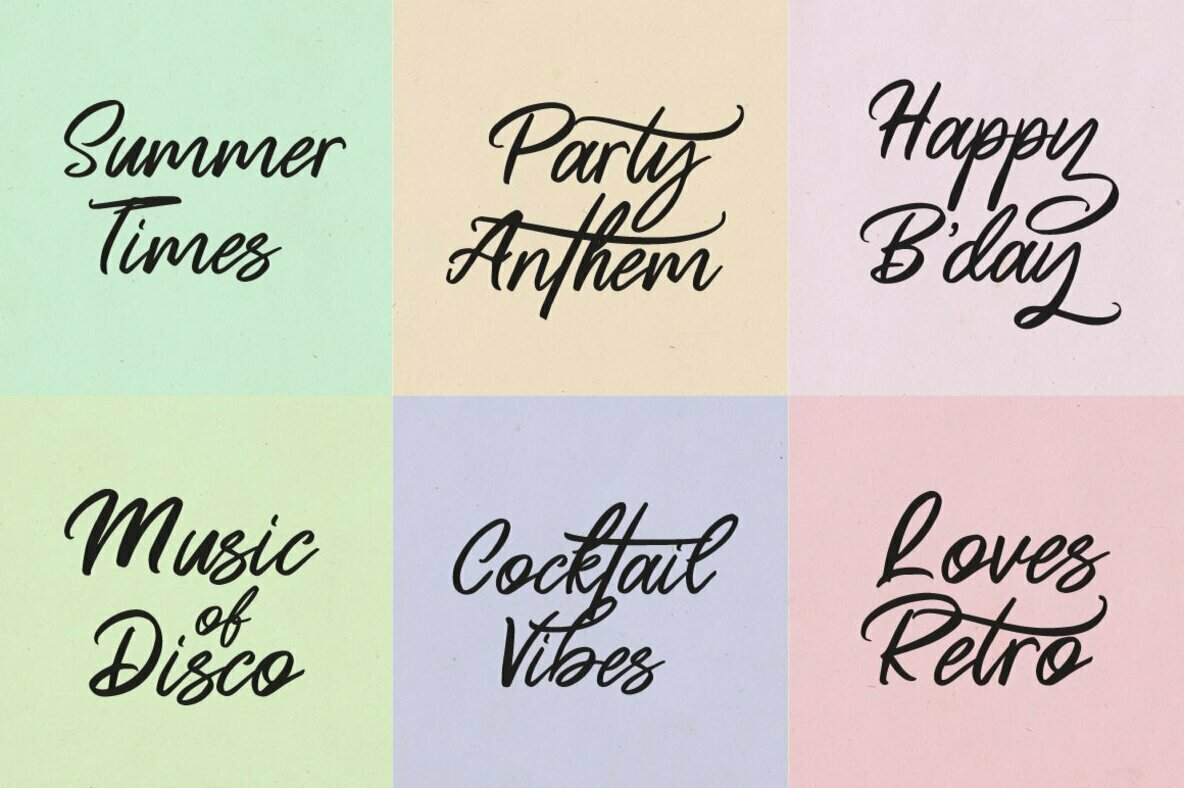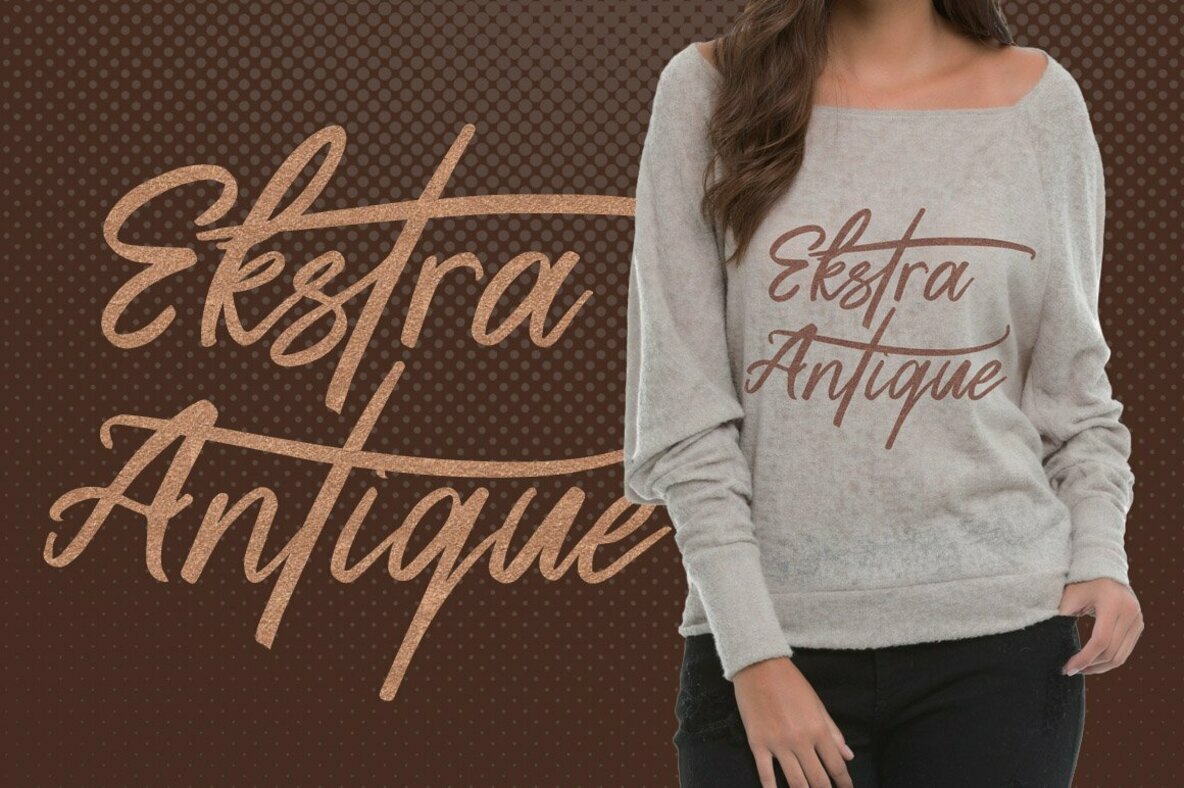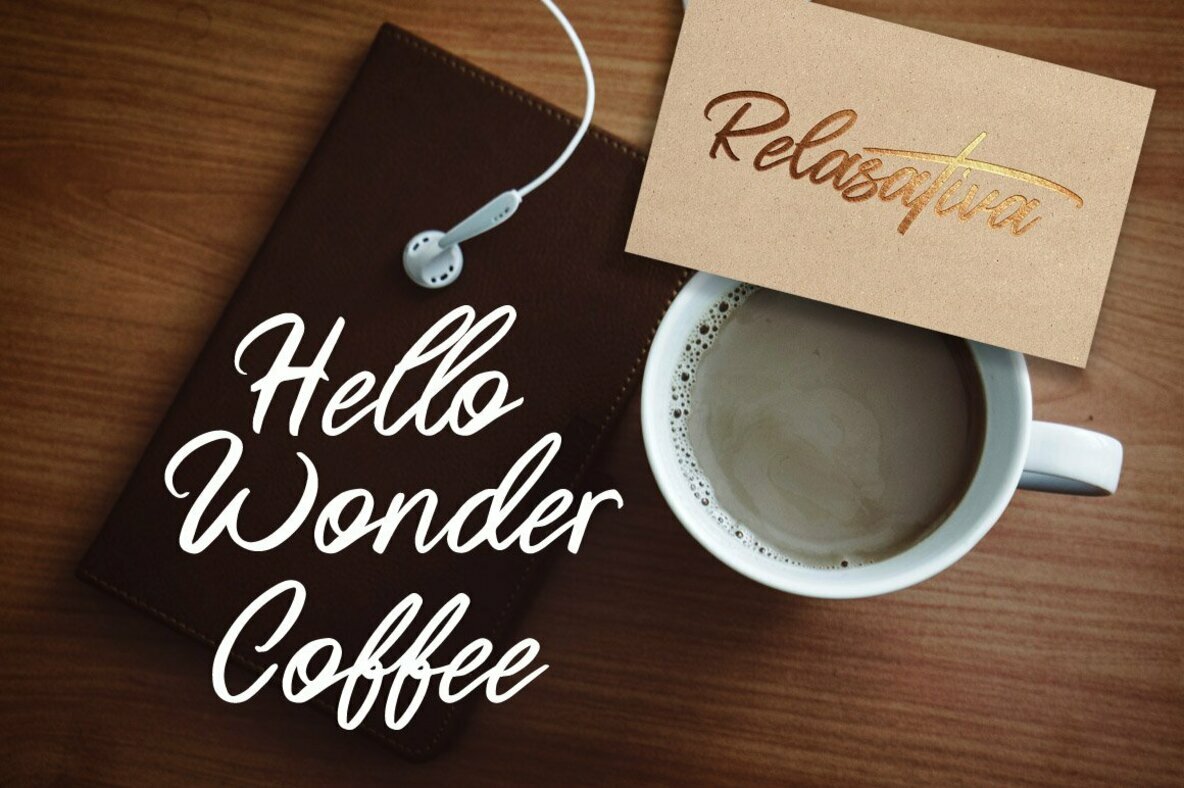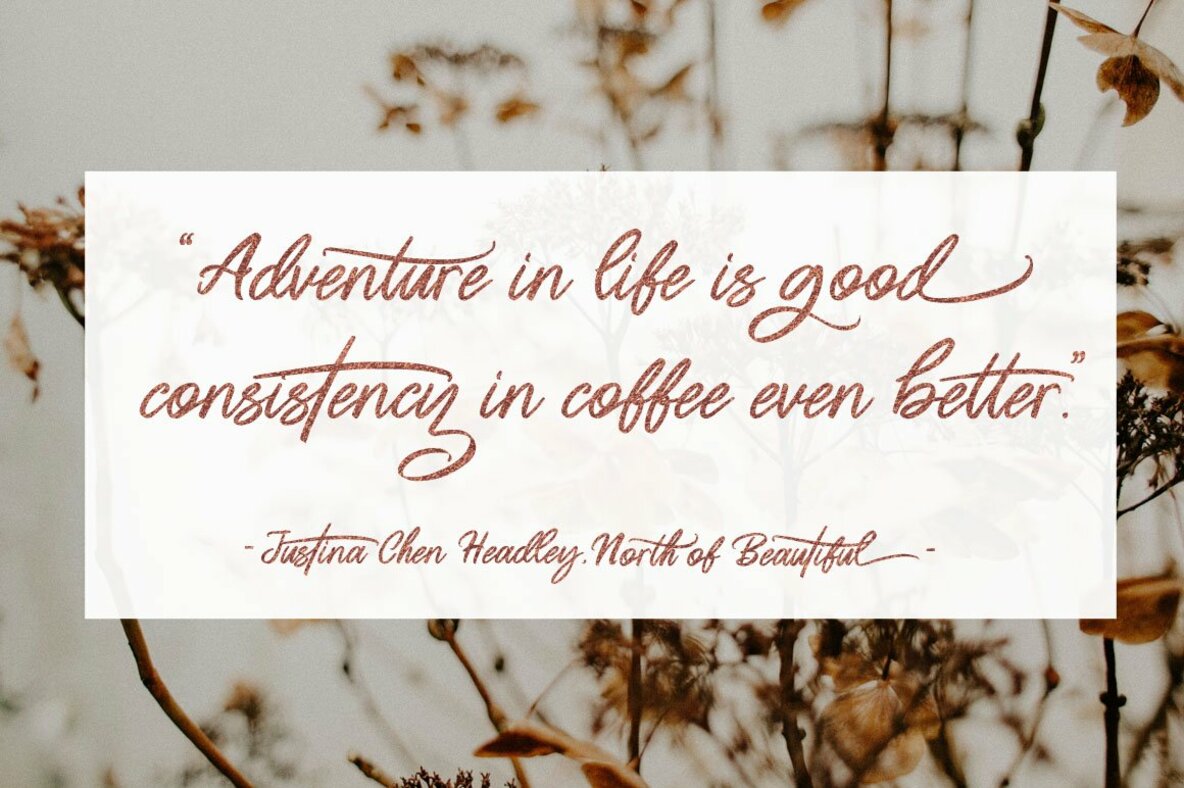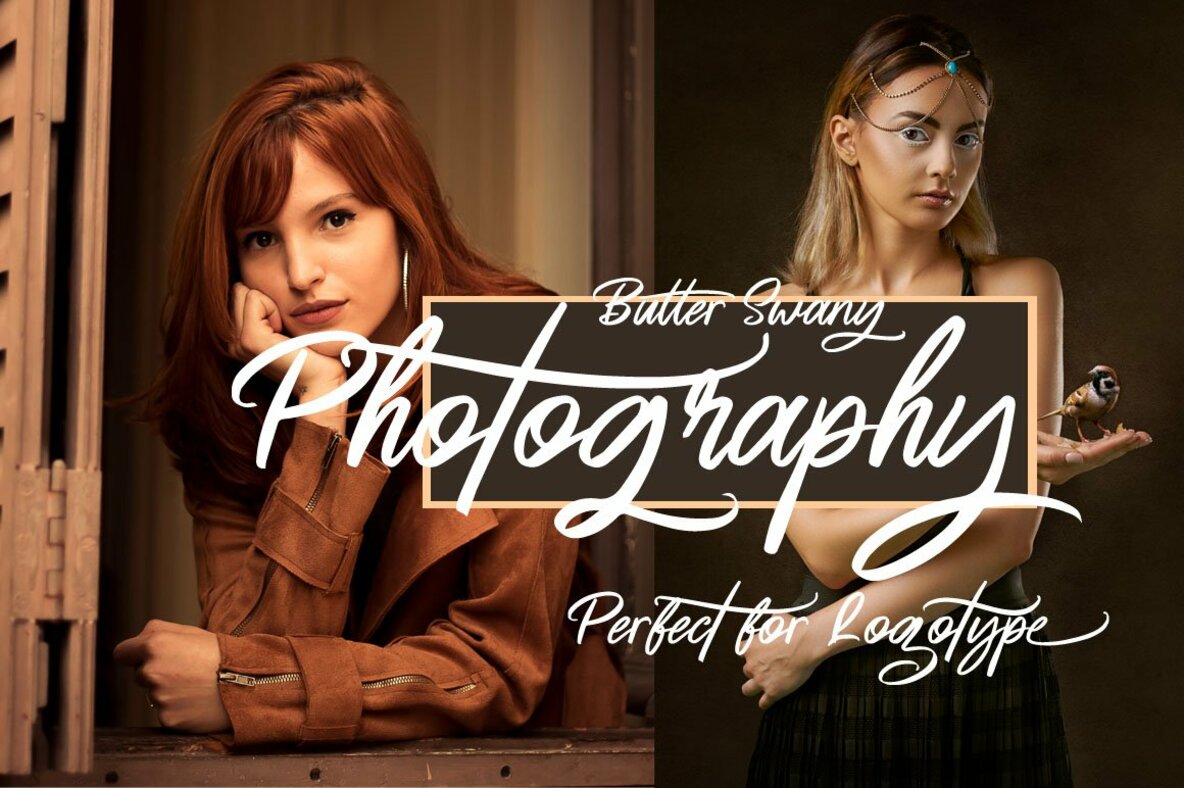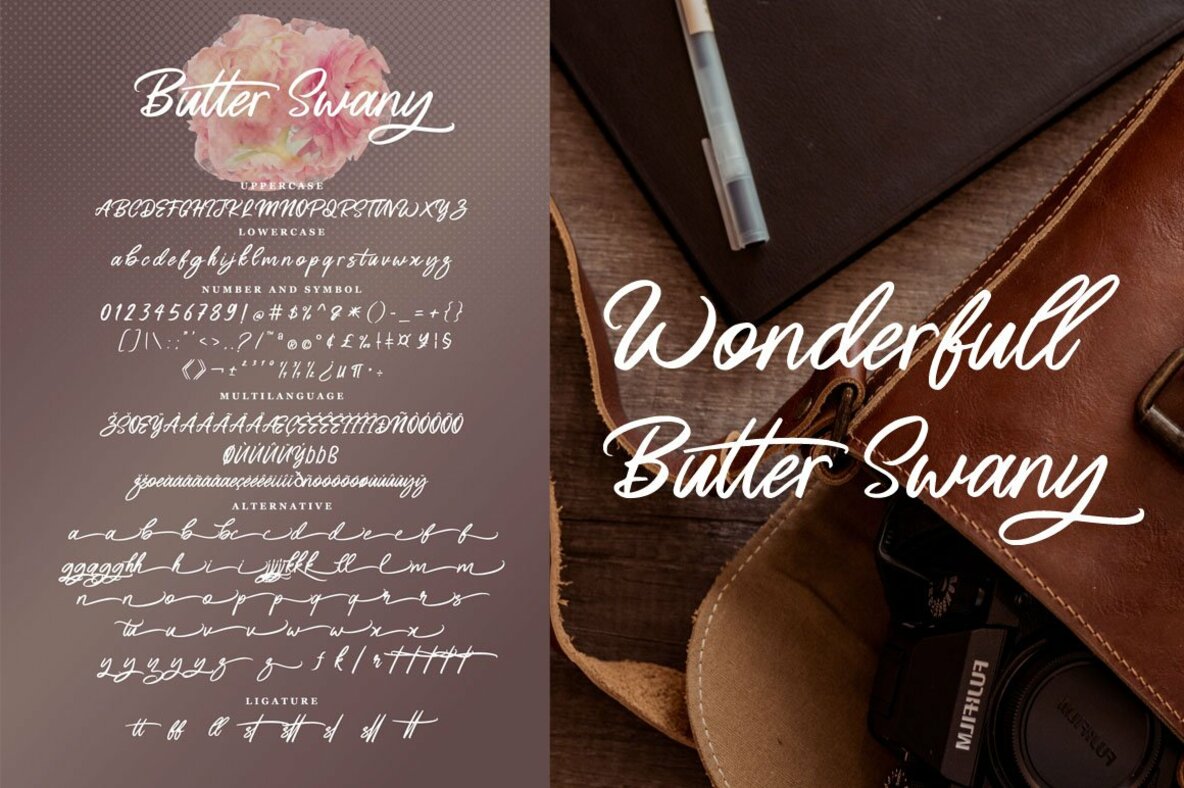
Butter Swany Font
Butter Swany
Butter Swany embodies a dynamic script font defined by its handlettering brush style. Its versatility and opentype features make it ideal for various design endeavors. Whether you're crafting wedding invitations or branding materials, the distinct character of Butter Swany elevates any project.Butter Swany: Script Font with Handlettering Brush Style